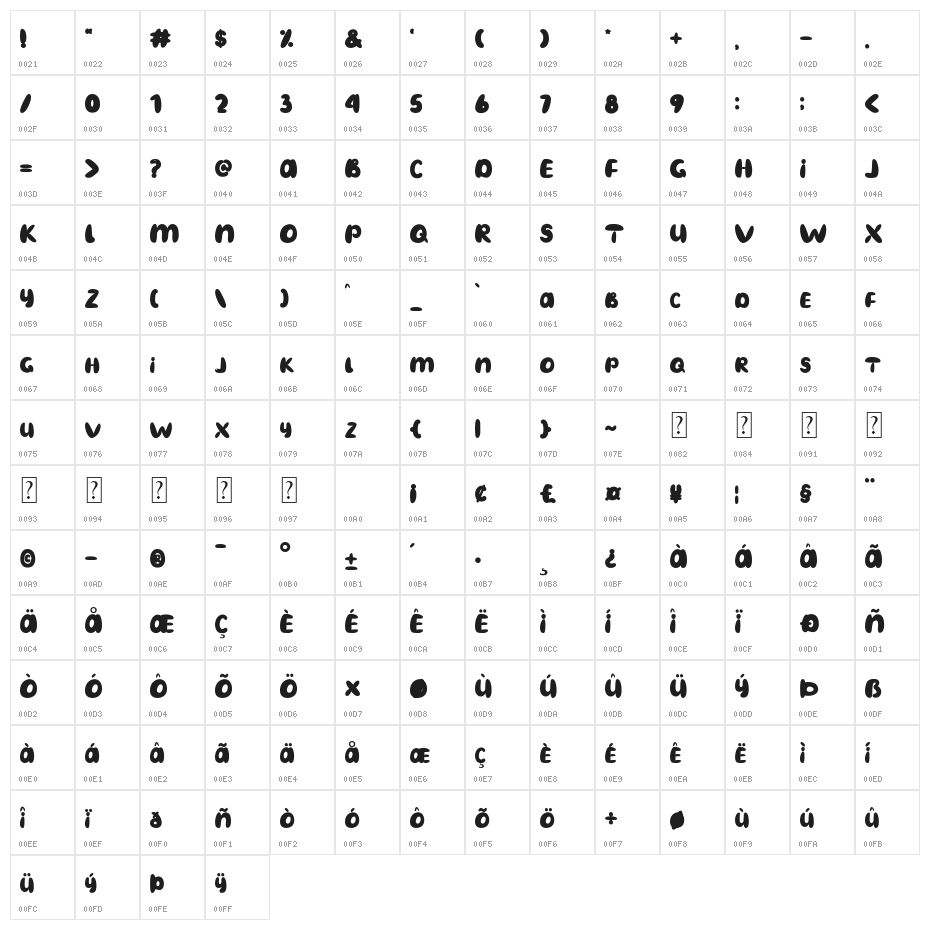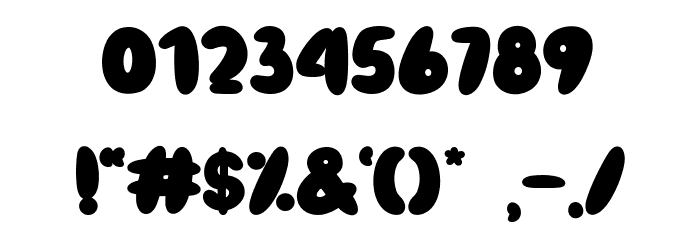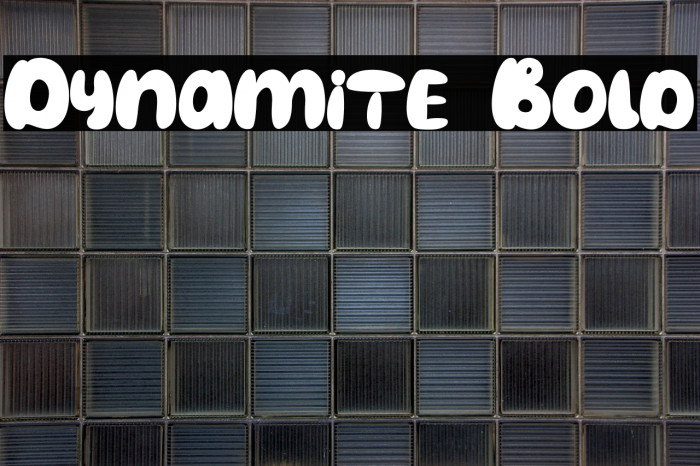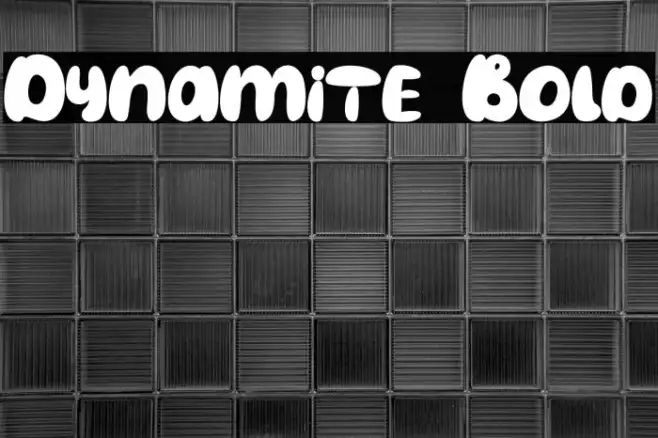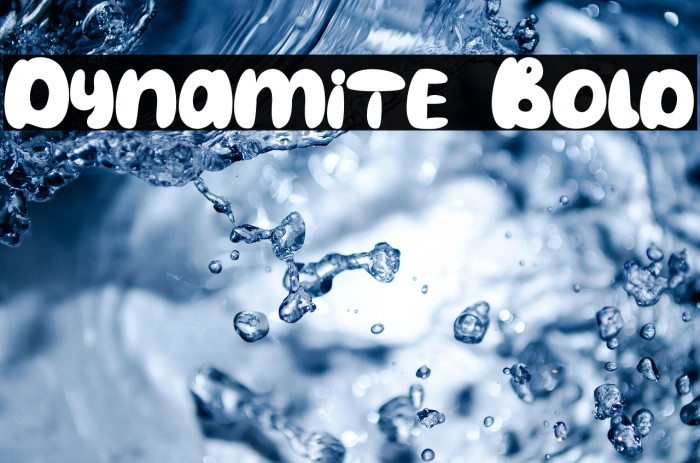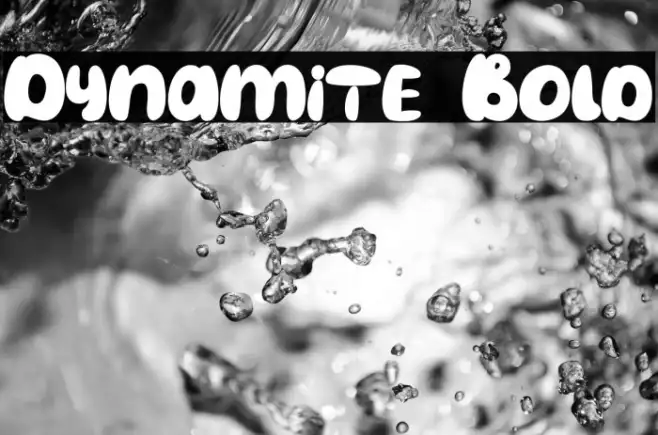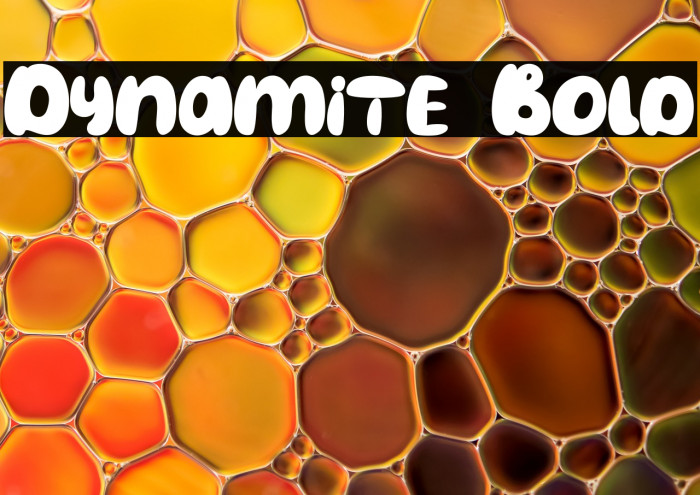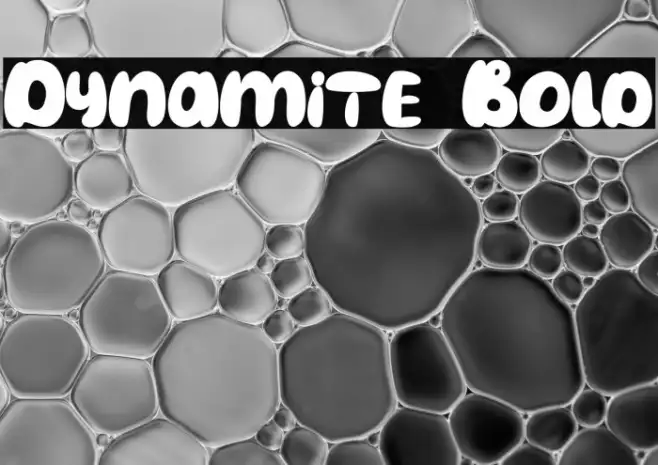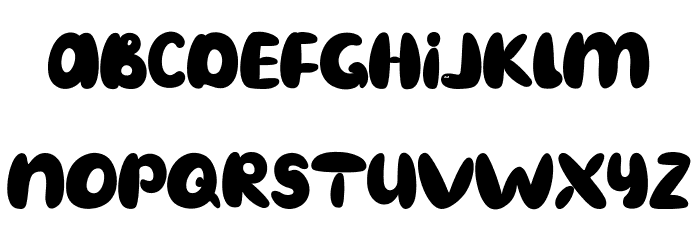
Dynamite Bold Font
Dynamite Bold Description
This font features a bold and playful design with rounded, bubble-like characters that convey a sense of fun and energy. The letters are thick and substantial, creating a strong visual impact. Each character is distinct, with a consistent stroke width that gives the font a cohesive look. The rounded edges and lack of sharp angles contribute to its friendly and approachable appearance. This style is particularly effective for capturing attention and conveying a lively, upbeat tone.
| Proposed Projects | Ideal for children's books, playful branding, party invitations, and eye-catching posters. |